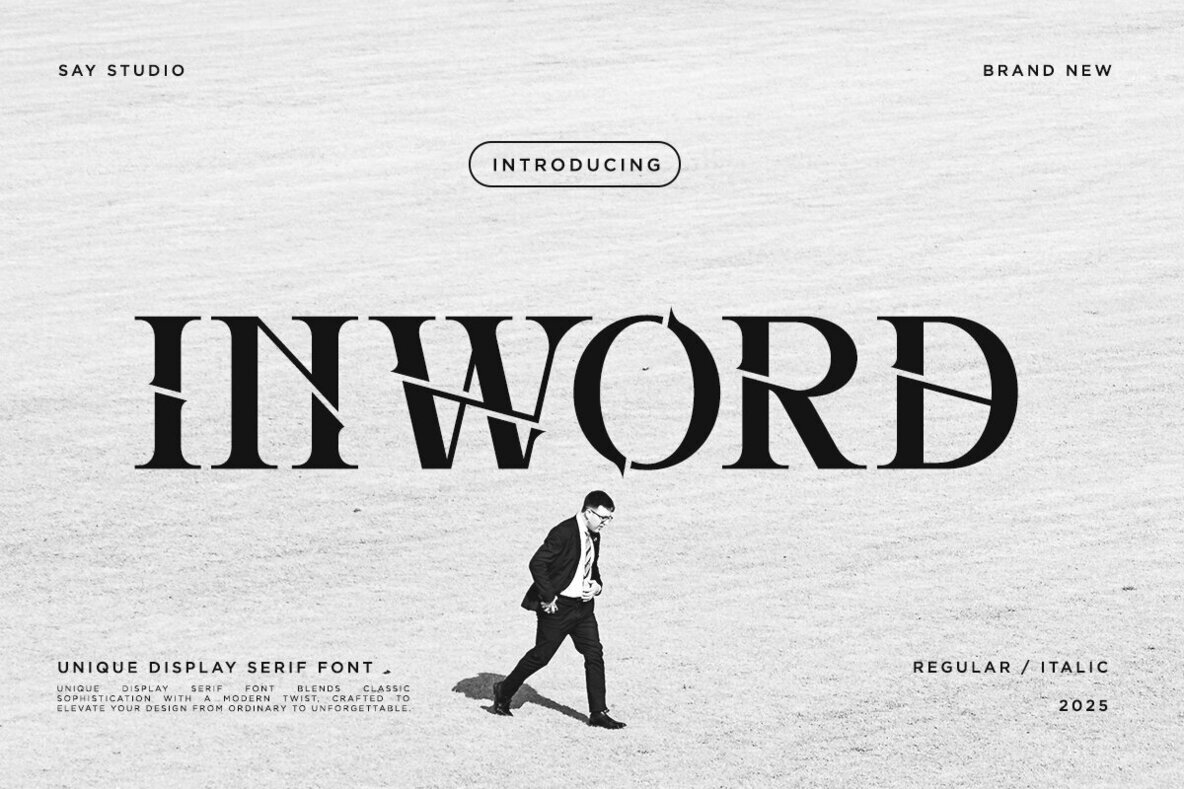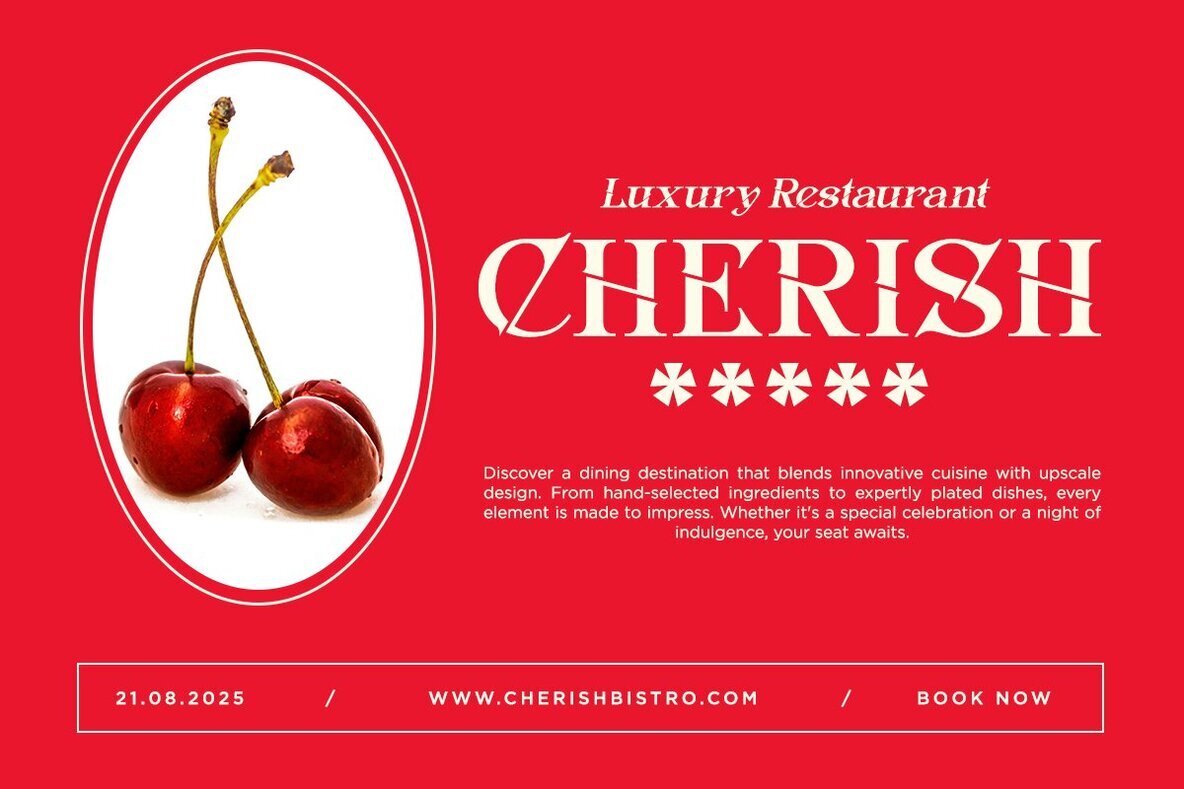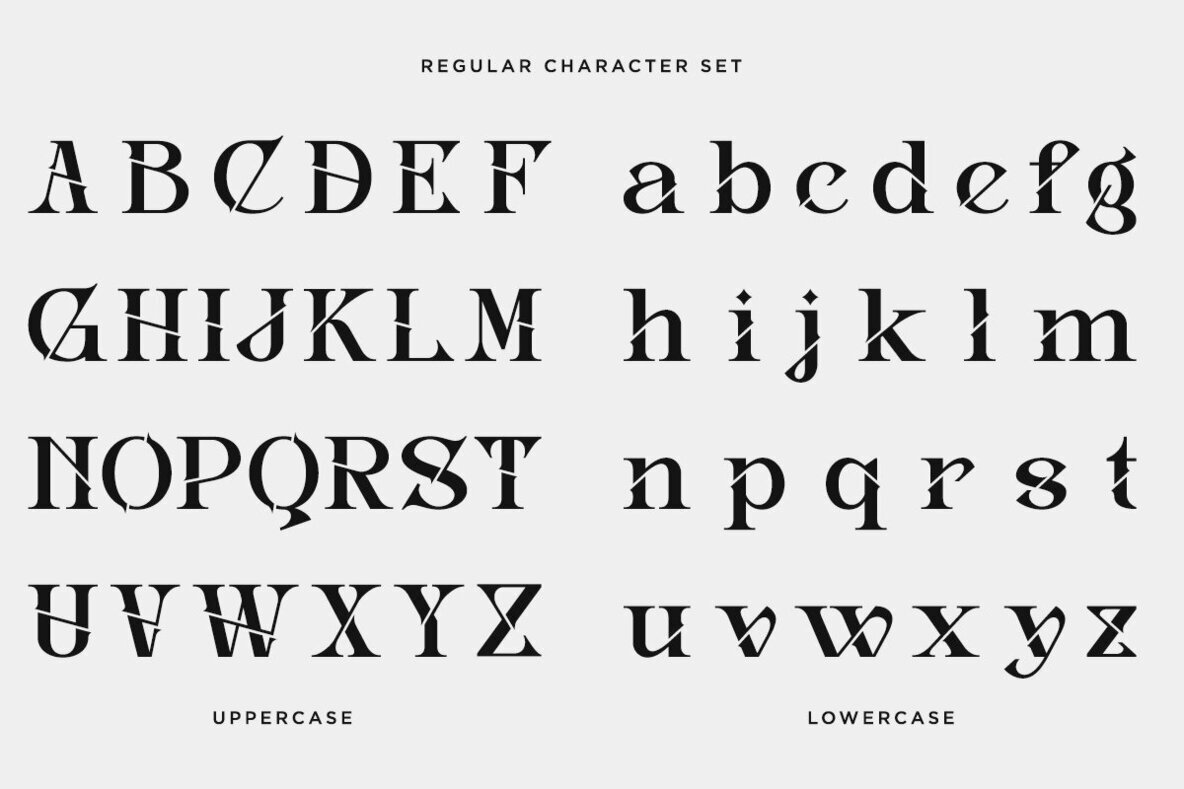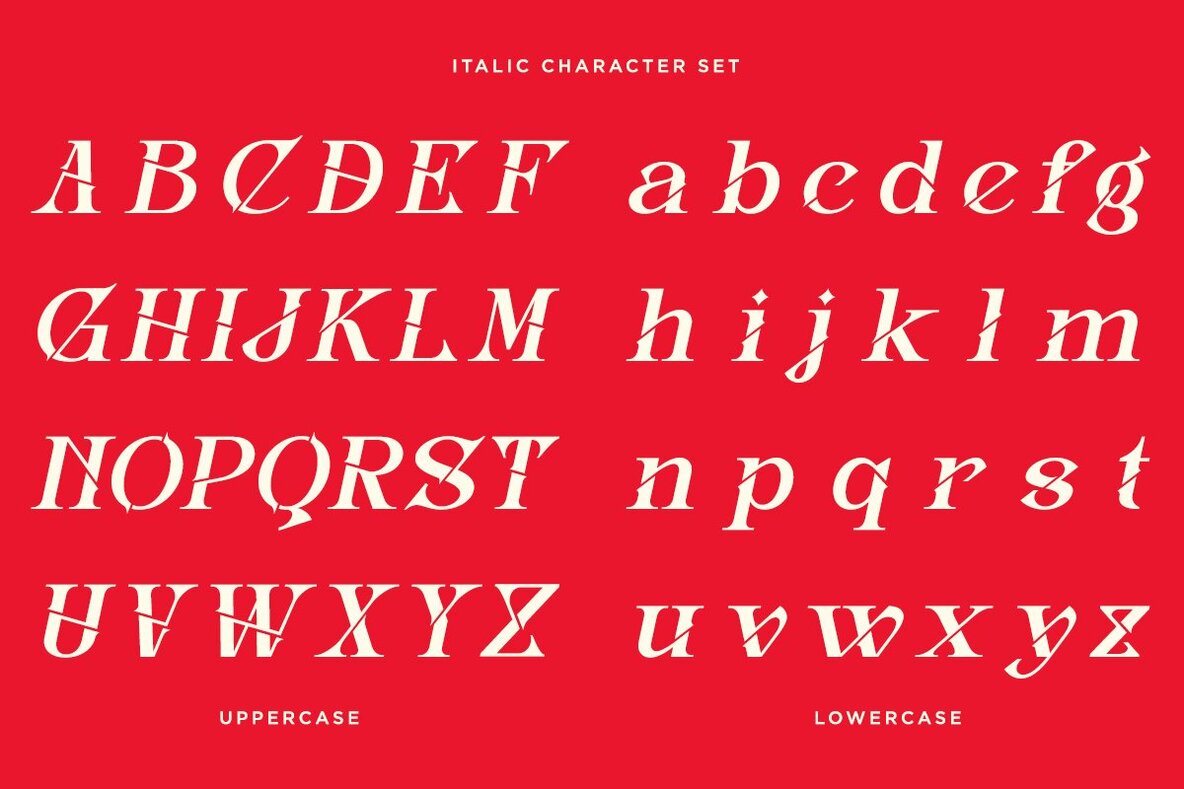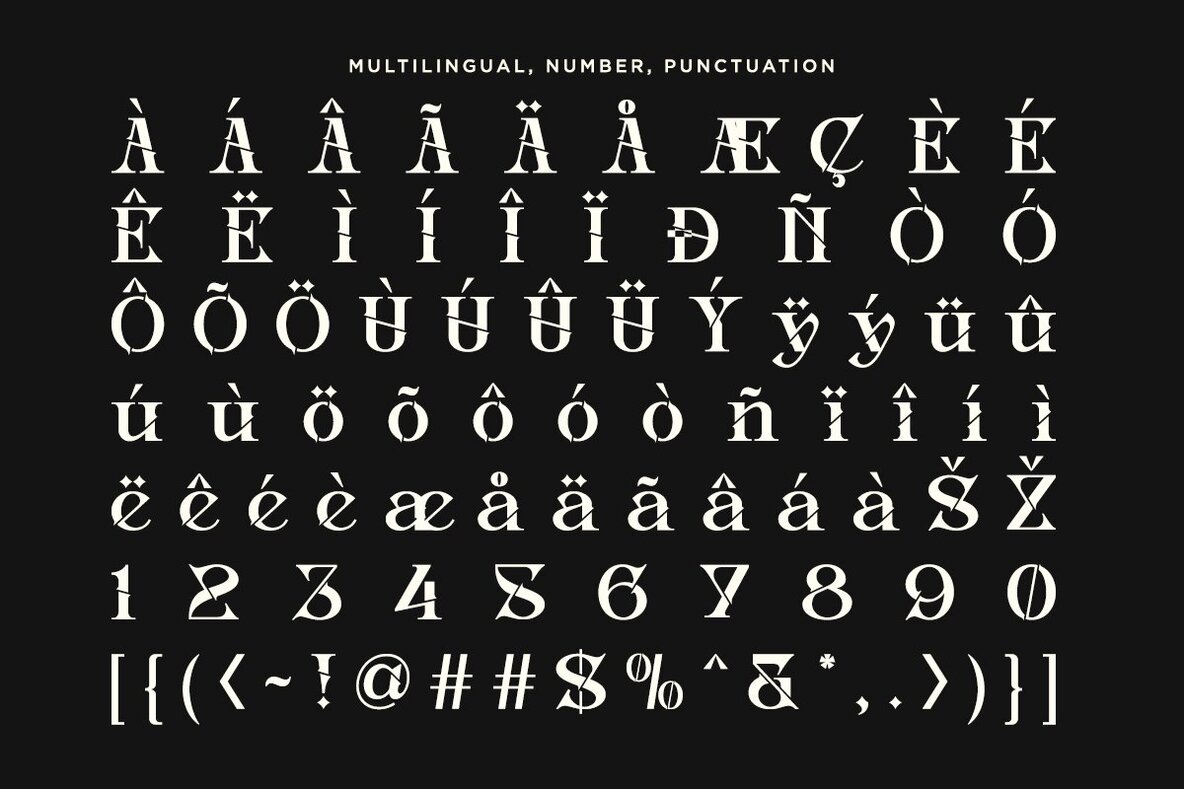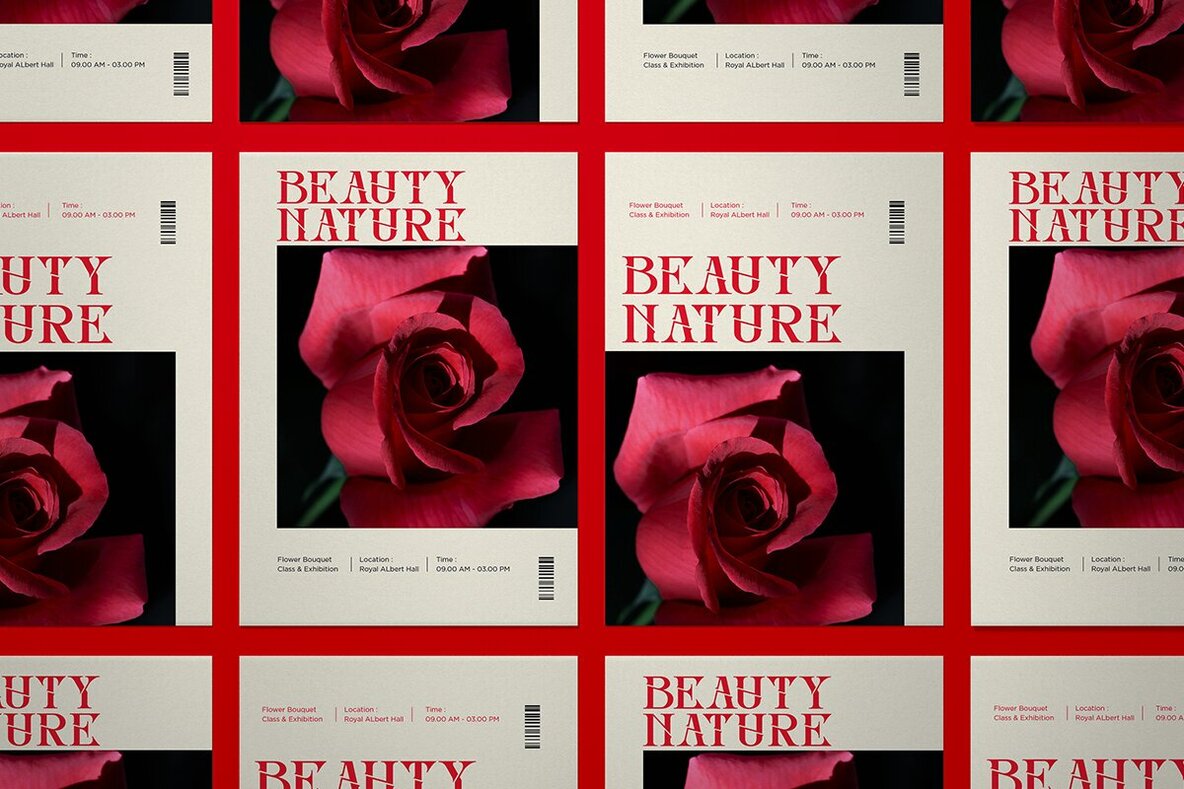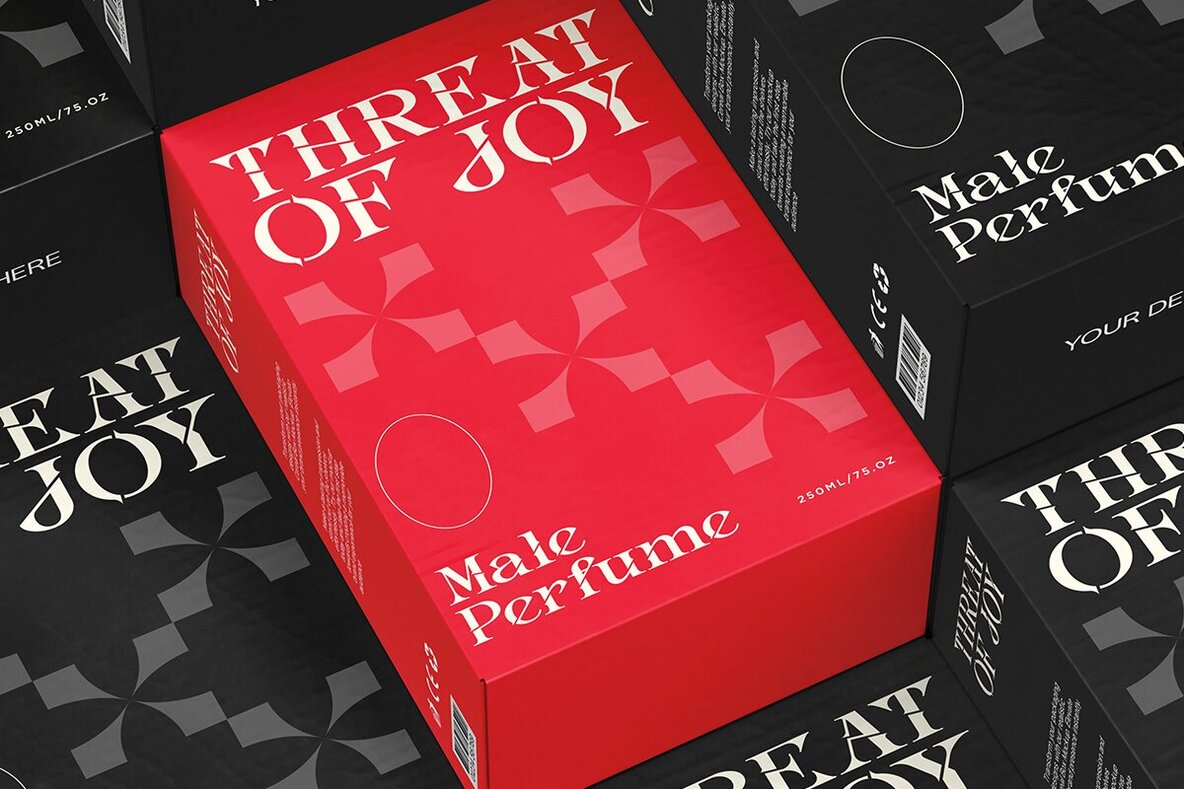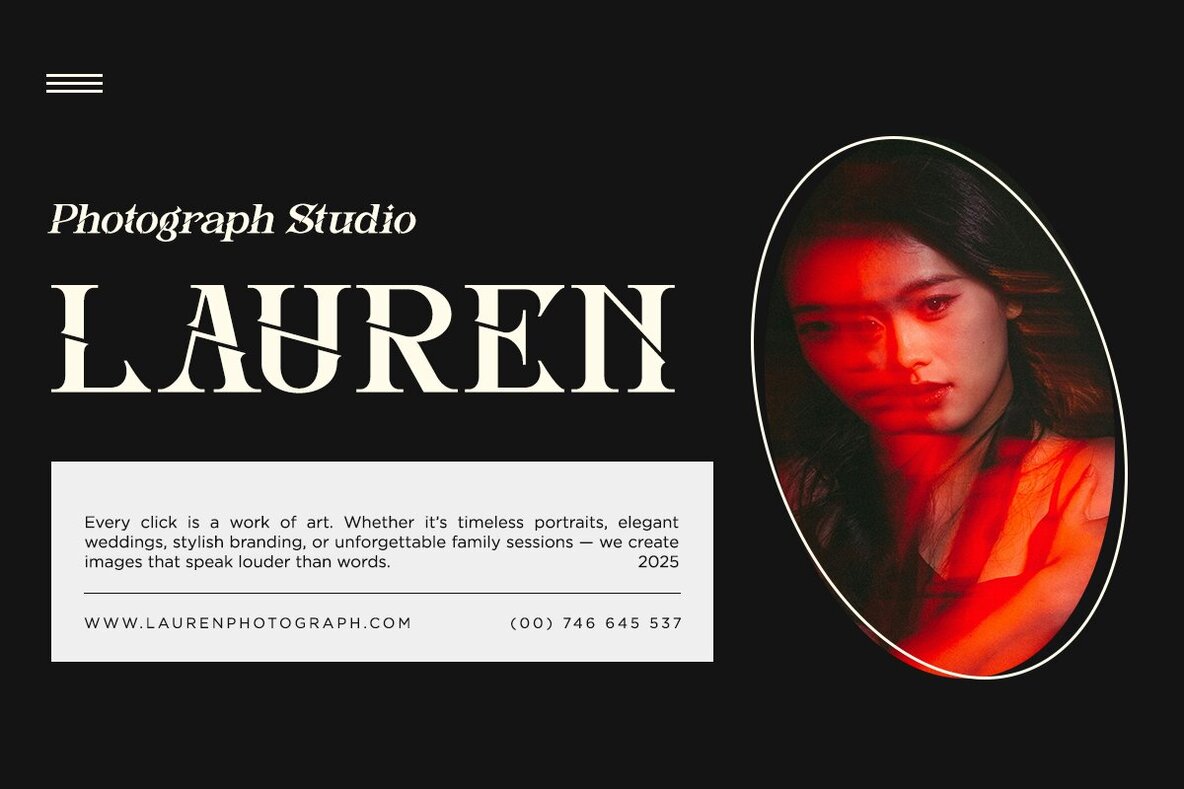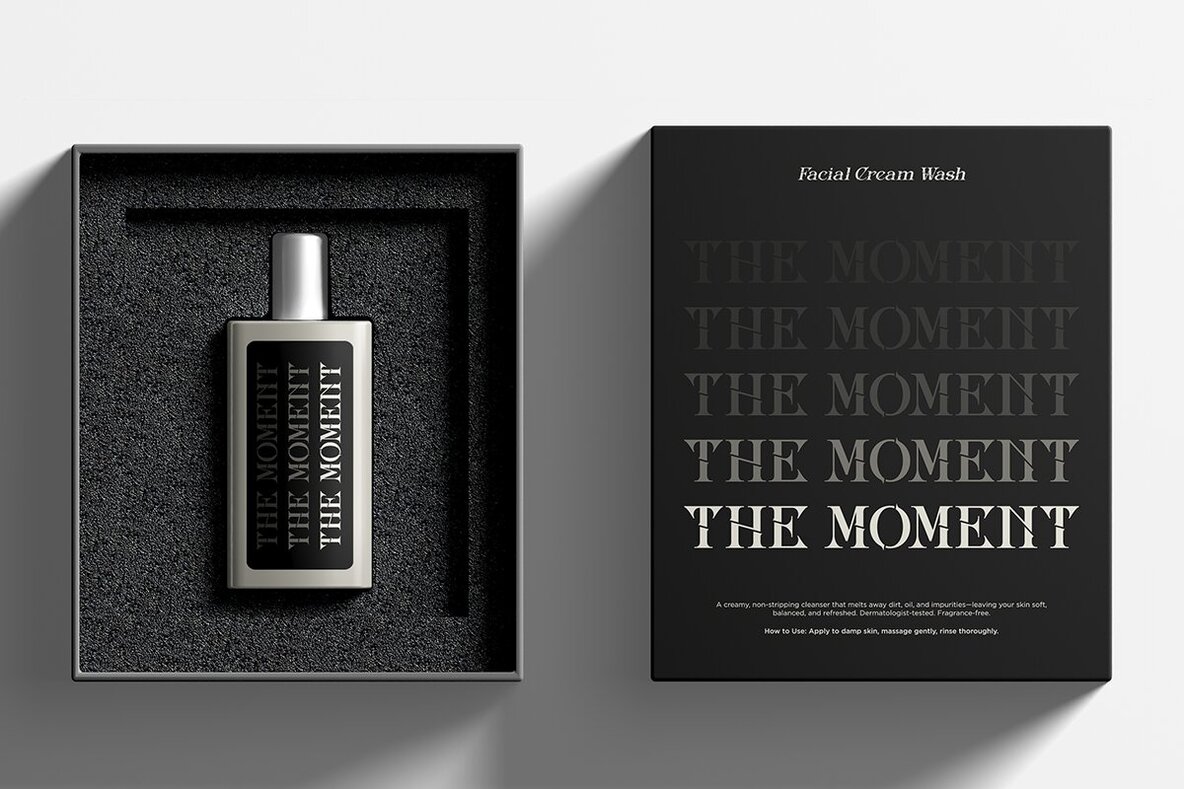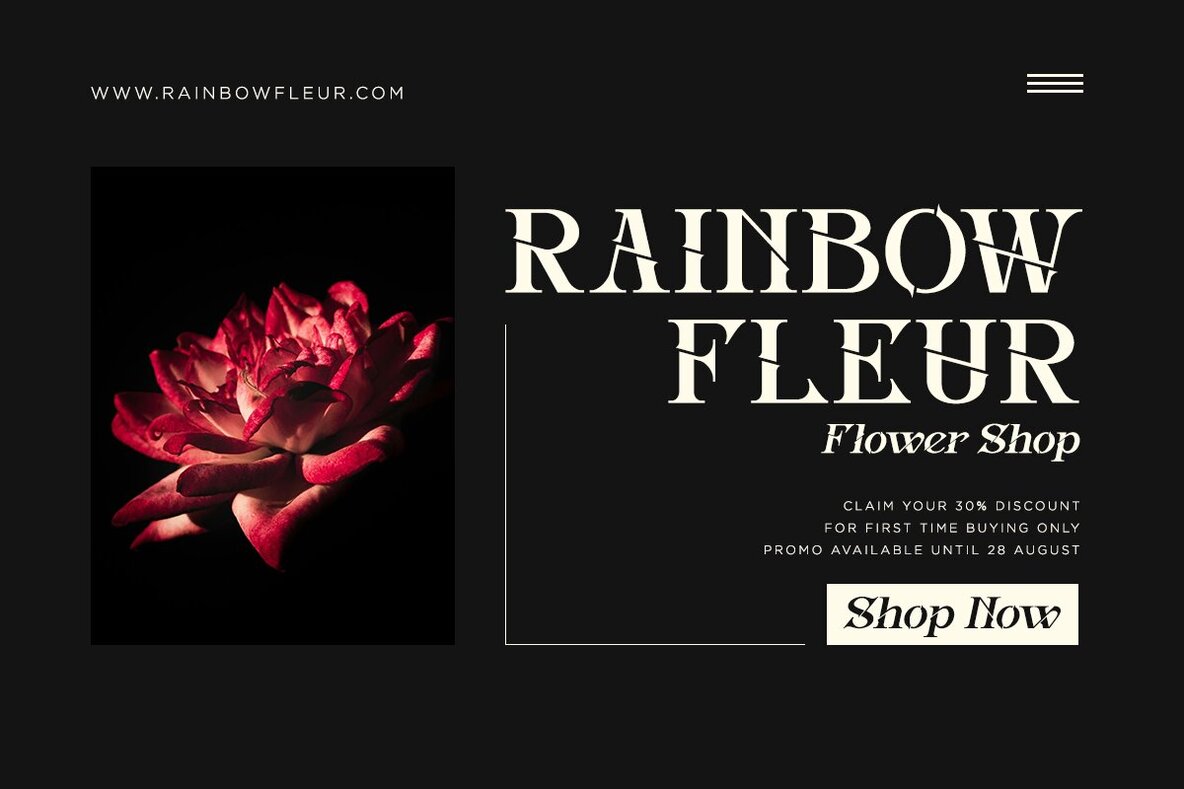
Inword Font
Inword Regular
Inword Italic
Discover the epitome of luxurious serif design with Inword. This unique display serif font artfully combines classic elegance with a modern edge, crafted to infuse your visual identity with sophistication and grandeur. Ideal for creating an elegant logo, branding, or fashion statement, Inword also enhances luxury brands, layout magazines, beauty products, and packaging. Whether you're designing for perfume branding, fashion, or simply adding a stylish text overlay to any image, Inword delivers unmatched versatility.Inword: Display Serif Font by Say Studio